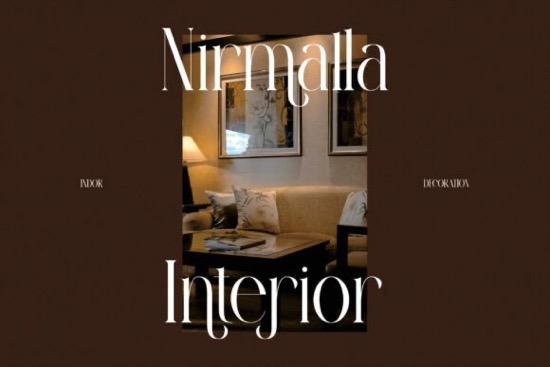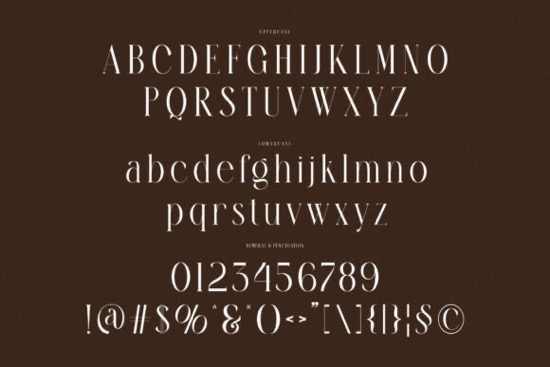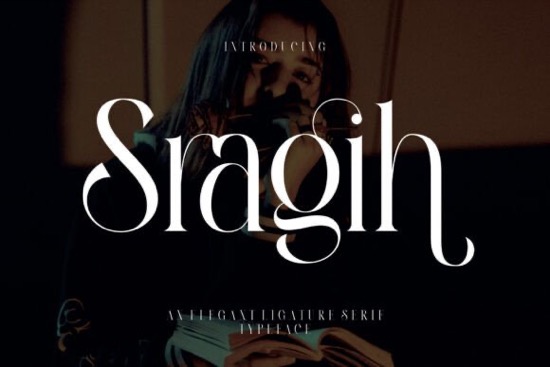
Sragih Font
by Alfinart
Sragih is an exceptionally unique serif font elegant crafted to satiate diverse design requirements. It evokes the beauty of fresh blooms and timeless elegance. With its bold yet refined ligatures, Sragih stands out as a sophisticated and feminine typeface. Perfect for upscale designs, whether for florals, fashion, or high-end branding, Sragih pairs the charm of classic serif styles with a modern twist. Every letter feels intentional, with a soft and graceful presence that elevates any project it touches.
Bring a touch of refinement and natural grace to your work with Sragih. Let this font breathe elegance into your designs, and watch them flourish with style and character.